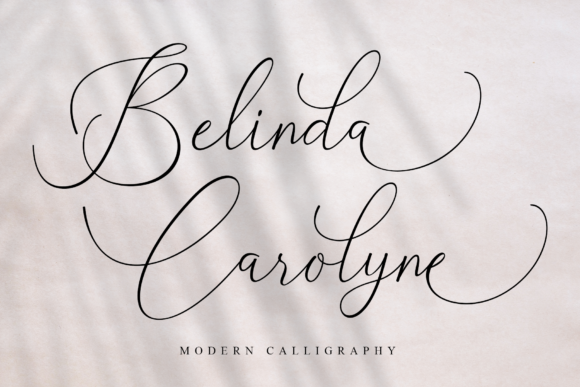
Introducing Belinda Carolyne Font - a mesmerizing calligraphy font designed to ignite your creativity and infuse a touch of romance into your crafting projects. Created by the talented MJB Letters, this font is a true work of art that will captivate your audience and elevate your designs to new heights.
With its elegant script style, Belinda Carolyne Font is perfect for adding a touch of sophistication to wedding invitations, love letters, and heartfelt messages. Its graceful curves and intricate details create a sense of timeless beauty, making it an ideal choice for any occasion that calls for a touch of elegance.
But what truly sets Belinda Carolyne Font apart are its stunning swashes and ligatures. These unique features add a touch of whimsy and playfulness to your designs, allowing you to create eye-catching headlines, logos, and branding materials that stand out from the crowd. Let your imagination run wild as you explore the endless possibilities this font offers.
Whether you're a professional graphic designer or a DIY enthusiast, Belinda Carolyne Font is incredibly versatile and easy to use. Its seamless connection between letters ensures a smooth and natural flow, while its wide range of characters allows for seamless customization and personalization. Let your creativity flourish as you effortlessly bring your vision to life.
But don't just take our word for it. Join the countless designers and crafters who have fallen in love with Belinda Carolyne Font. Experience the joy of creating stunning designs that leave a lasting impression. From elegant wedding invitations to striking social media graphics, this font will become your go-to tool for creating visually captivating masterpieces.